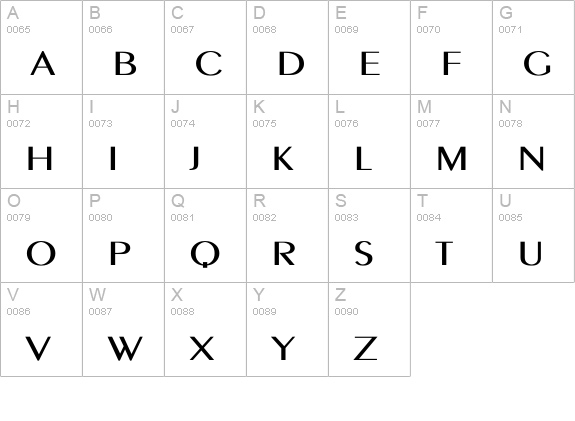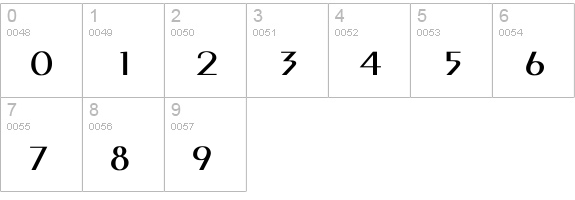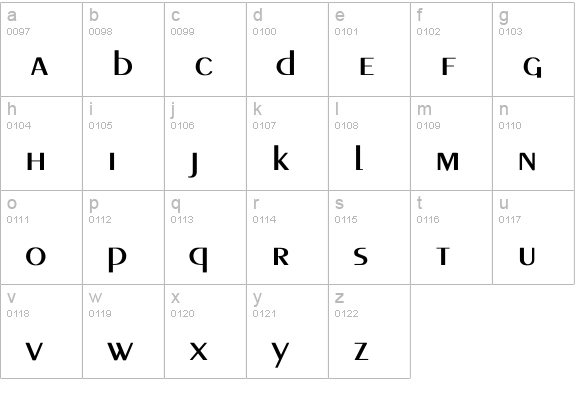
PigNoseTyp Cn Bold Font Details
PigNoseTyp Cn Bold is a strong, high-contrast variant in the PigNoseTyp typeface family \xE2\x80\x94 well suited to headlines, attention-grabbing titles, and strong calls-to-action.
Introducing PigNoseTyp Cn Bold, a captivating and bold font that exudes an air of confidence and professionalism. This versatile typeface combines classic elegance with a touch of modernity, making it perfect for a wide range of design projects. With its clean lines and strong presence, PigNoseTyp Cn Bold is a font that commands attention. Whether you're designing a logo, creating eye-catching headlines, or crafting a visually stunning poster, this font will make your text stand out from the crowd. But what truly sets PigNoseTyp Cn Bold apart is its accessibility. This font is freely available to download at FontsMarket.com, ensuring that designers of all levels can enjoy its beauty and versatility. Now, you can elevate your designs without breaking the bank. The sleek and bold nature of PigNoseTyp Cn Bold makes it suitable for various industries and purposes. From fashion and beauty to technology and finance, this font effortlessly adapts to any design concept, adding a touch of sophistication and professionalism. So why wait? Embrace the power of PigNoseTyp Cn Bold and let your creativity soar. Download this remarkable font for free at FontsMarket.com and unlock a world of possibilities for your design projects.